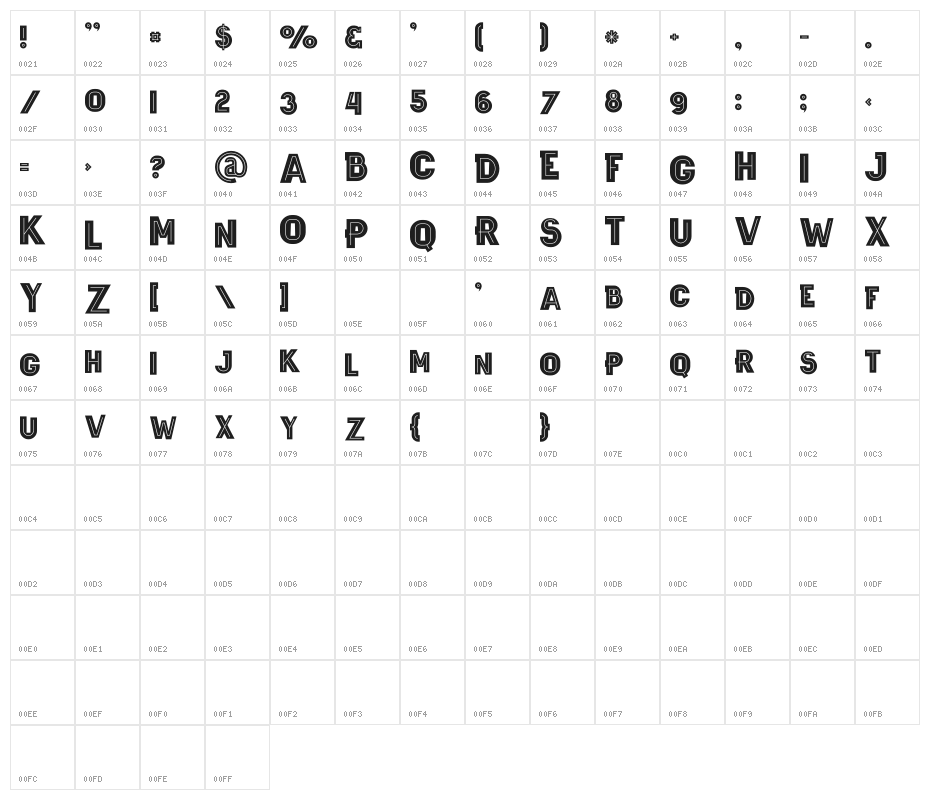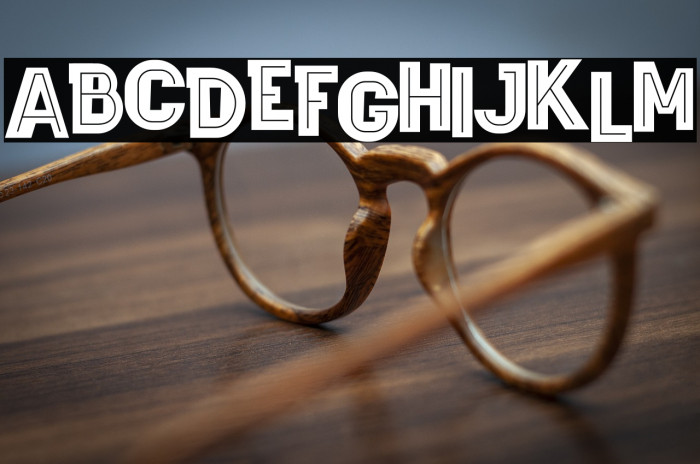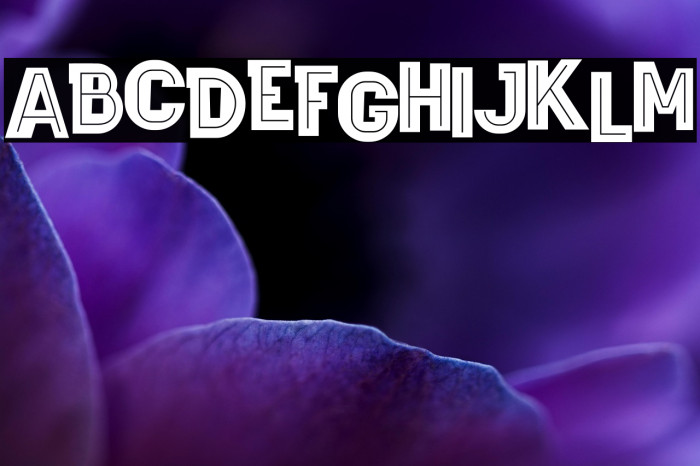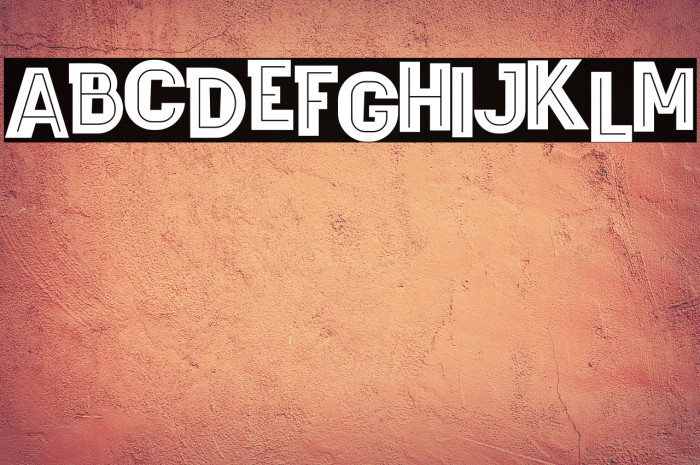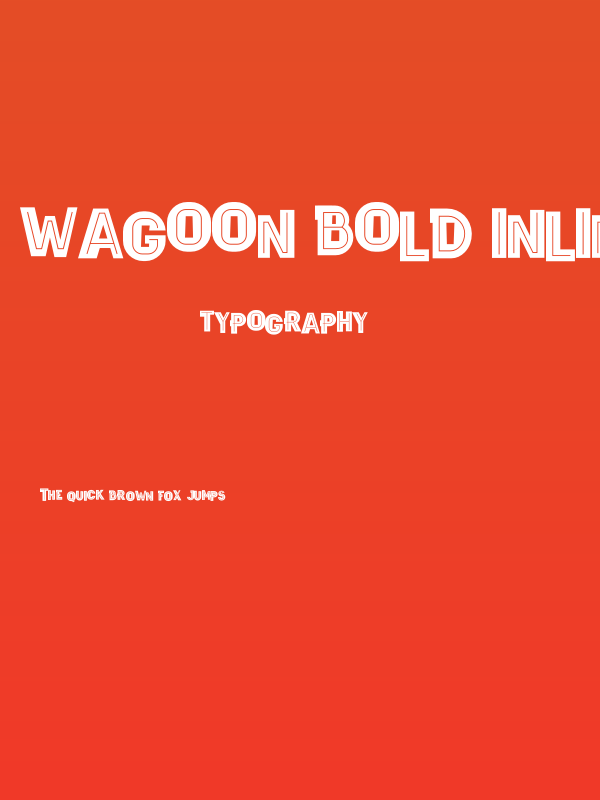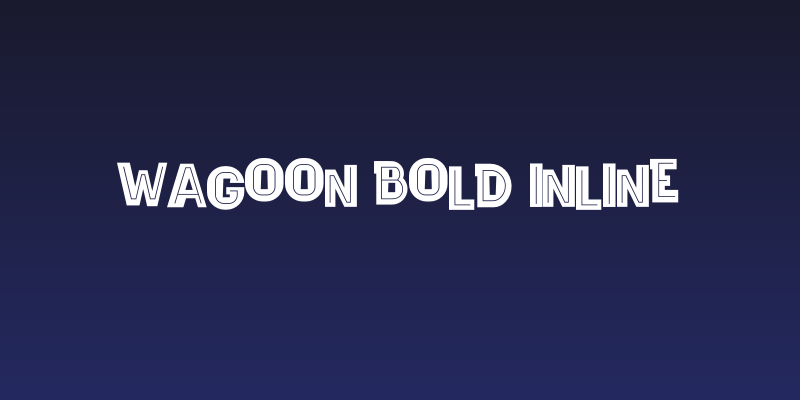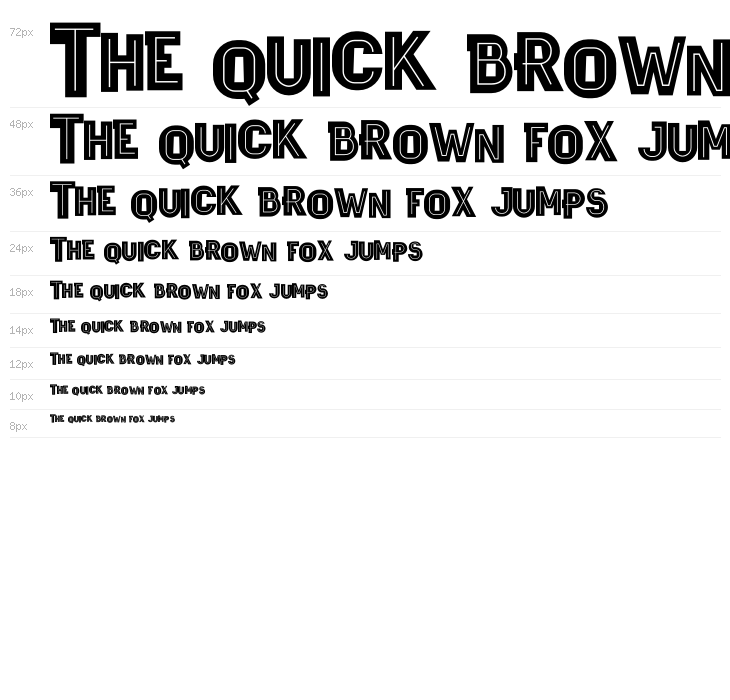
Wagoon Bold Inline Font
Wagoon Bold Inline Description
This font features a bold, inline style with a strong geometric structure. The uppercase and lowercase letters are designed with a consistent width and a distinct inline cutout that adds depth and dimension. The numbers and special characters maintain this bold inline aesthetic, making them highly legible and visually striking. The font's overall appearance is modern and dynamic, suitable for making a strong visual impact. The characters are evenly spaced, ensuring readability while maintaining a cohesive look.